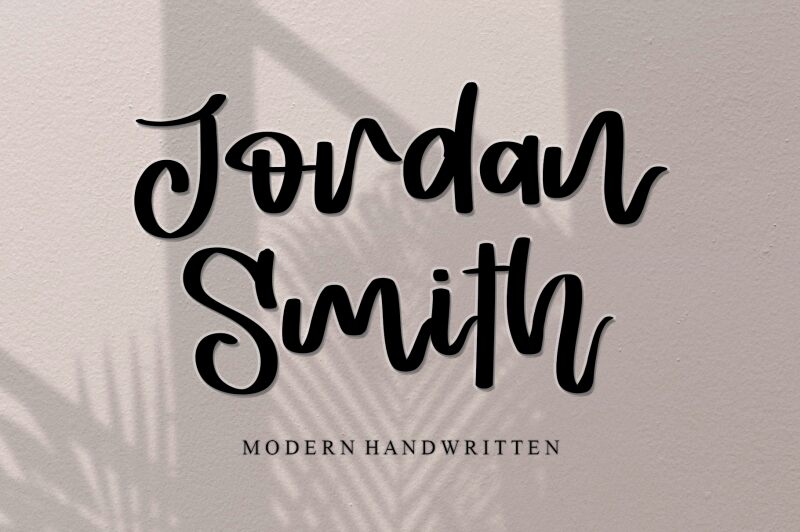
Jordan Smith font is a handwritten typeface designed by Letterafa Studio. It has a casual elegance with an impressive structure that’s noticeable from afar. The flowing style of the letters allows messages created with them to feel fluid, almost as if they are moving similarly to how waves do. Even so, the font keeps a degree of elegance and legibility that makes it suitable for both artistic and professional projects.
Consider the uses for which this free handwritten font can be incorporated including SUSU design, packaging design, branding design & labels design. It should also work for posters, flyers, invitation cards etc.